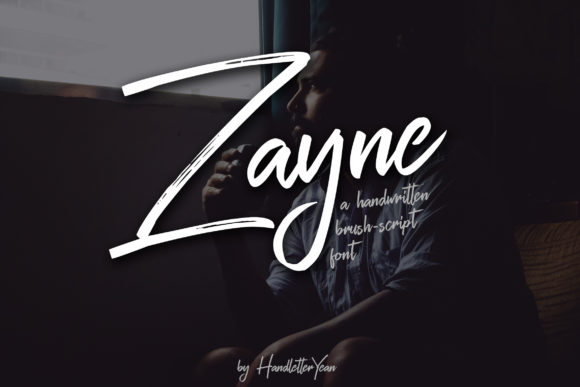
Zayne Font
Immerse yourself in the captivating world of Zayne Font, a remarkable creation by yean.aguste, where elegance and originality harmoniously blend. This mesmerizing script font exudes a vibrant urban spirit, reflecting the energy and vitality of modern life. With its alluring ligatures and swashing strokes, Zayne Font effortlessly elevates your designs, adding a captivating personal touch and storytelling charm.
Step into a realm of boundless creativity, where Zayne Font invites you to explore the depths of your imagination. Its distinct handmade feel evokes a sense of authenticity and raw emotion, ensuring your designs stand out with a captivating charm. Effortlessly craft stunning logos that resonate with your brand's identity, creating a lasting impression on your audience.
Harness the power of Zayne Font to transform ordinary designs into extraordinary expressions of art. Its elegant curves and playful strokes dance across the page, imbuing your creations with a touch of whimsy and grace. Whether you're crafting invitations, posters, branding materials, or social media graphics, Zayne Font adds a touch of sophistication and uniqueness that captures hearts and minds.
With Zayne Font as your creative companion, you'll discover a world of limitless possibilities. Its versatile nature seamlessly adapts to diverse design styles, from classic and elegant to bold and contemporary. Express yourself fully, knowing that Zayne Font will effortlessly elevate your vision, transforming your designs into masterpieces of creativity. Embrace the beauty of Zayne Font and let your imagination soar to new heights.